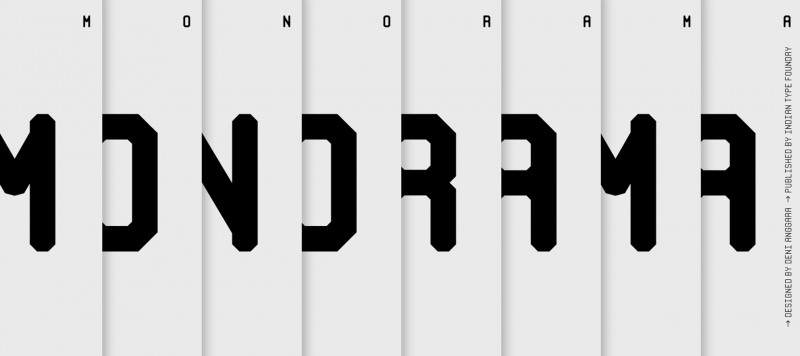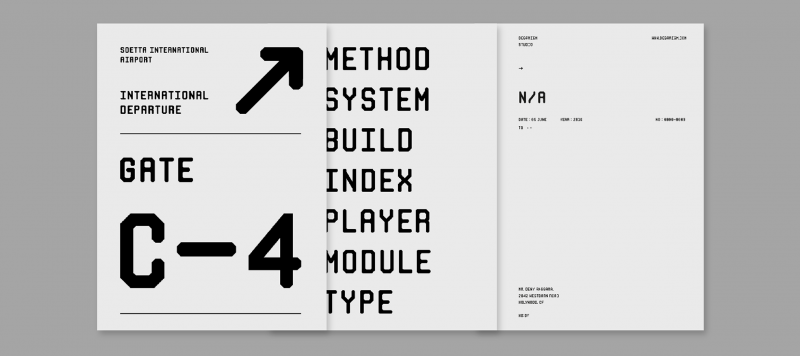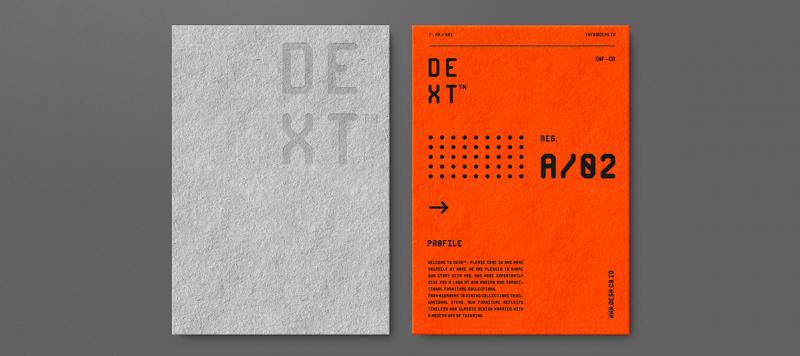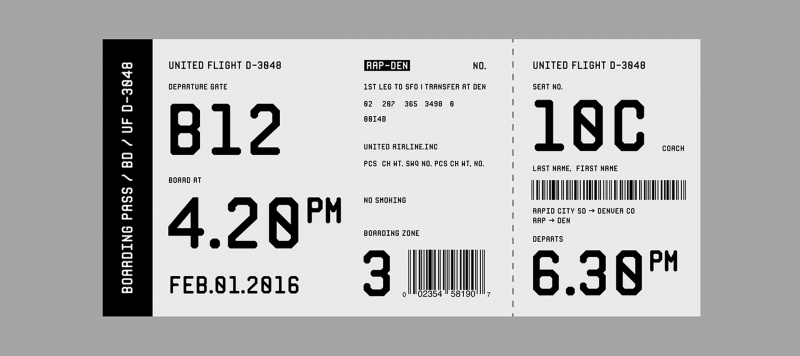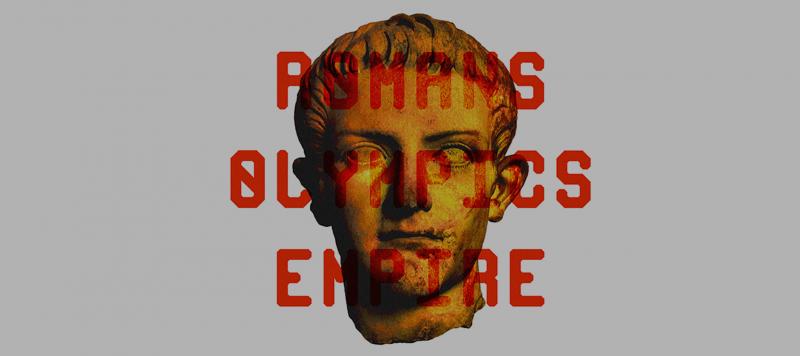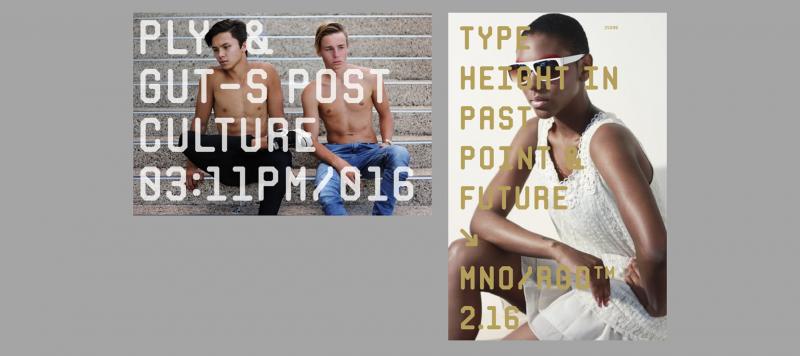
Monorama is a family of caps-only display fonts. Its letterforms are sans serif and quite industrial-looking. While text set in the four Monorama fonts appears at first glance to be monospaced, that is just a strong look ; in actuality, the letters have proportional widths. Monorama contains a number of constructed-design hallmarks. The fonts’ ‘M’ and ‘W’ share a nearly-identical form, rotated 180°. Letters that are traditionally rounded, like the ‘C’ or the ‘O’, are all straight-sided. In fact, the Monorama fonts do not include any curves in at all. Stroke-endings are mostly modulated, looking a bit like the ends of strokes in ‘rounded’ fonts (but also like ‘college’ or sports fonts). The ‘Q’ doesn’t descend below the baseline, but still has a tail. The ‘J’ has a non-descending tail of its own, too. The zero features a slash inside of its counter to distinguish it from the ‘O’. Monorama includes a full range of numerators and denominators for typesetting fractions, as well as ten directional arrow glyphs per font. Each font also has two different ampersands to choose from. Monorama is an excellent choice for headline-typesetting and logo design, but will certainly be used for concert and event flyers, too. It would even be great for branding a sports team. Monorama was developed by Deni Anggara, a type designer based in Bandung, Indonesia.
Family Name | Monorama |
Designer(s) | Deni Anggara |
Classification | Display |